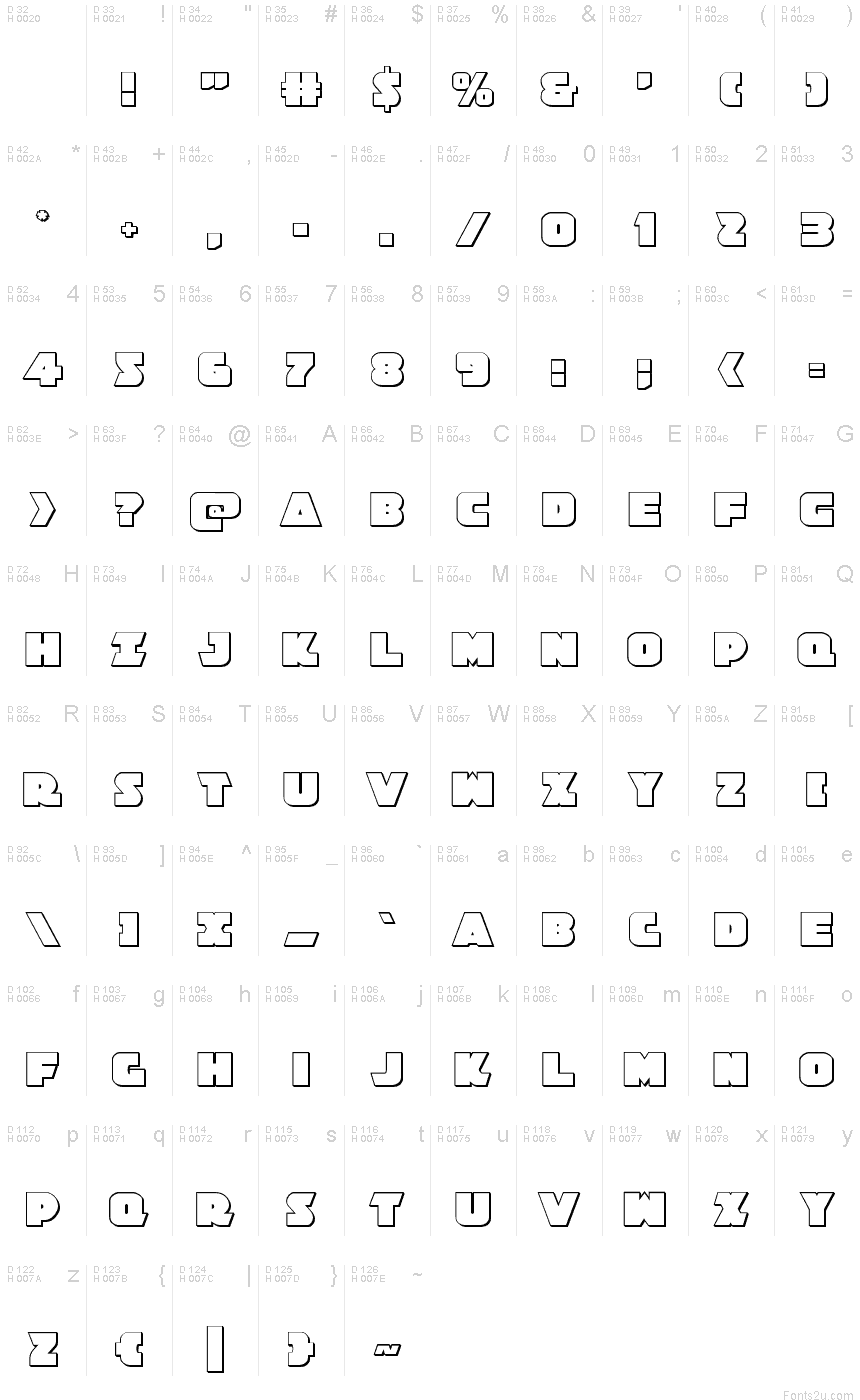
Jedi Special Forces 3D from Iconian Fonts is a free outlined 3D display font with a broad, squared silhouette. Its massive caps combine blunt curves, tight interior spaces, and sharp triangular cut-ins. The offset shadow is crisp and substantial.
Poster titles are its clearest role, especially for science-fiction events and action entertainment. Game graphics and merchandise also suit the forceful shapes and industrial edge. On packaging, the outlined faces can function like badge lettering or a stamped product mark.
Jedi Special Forces 3D